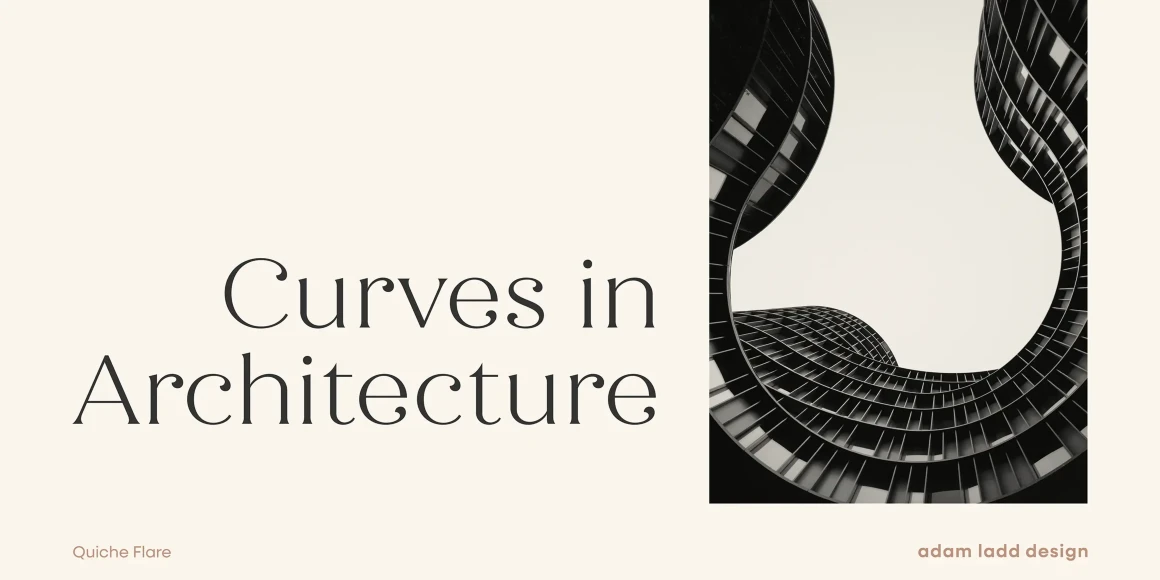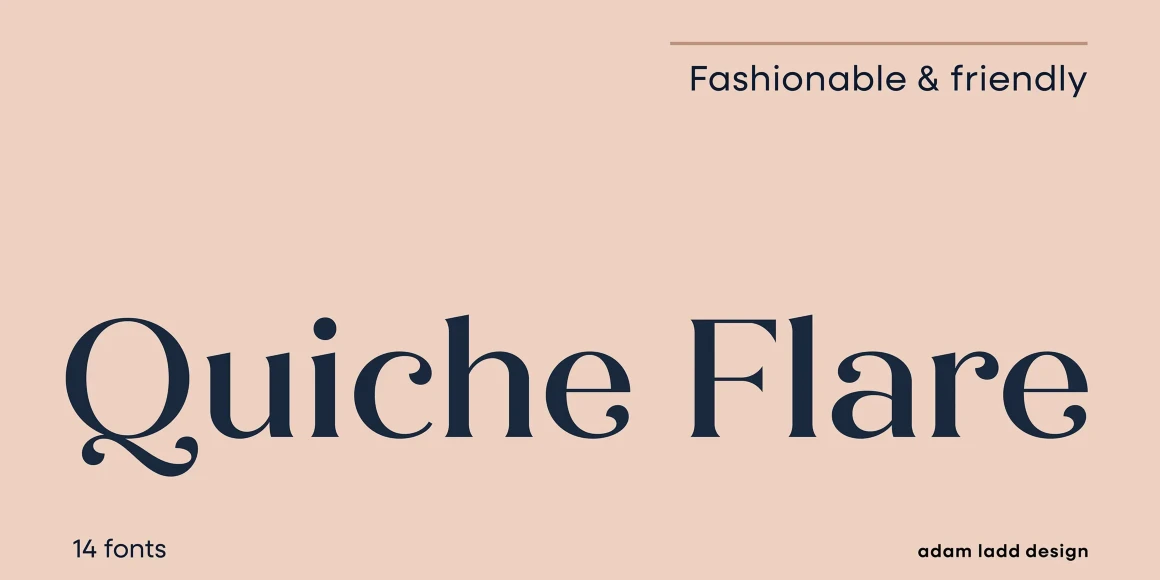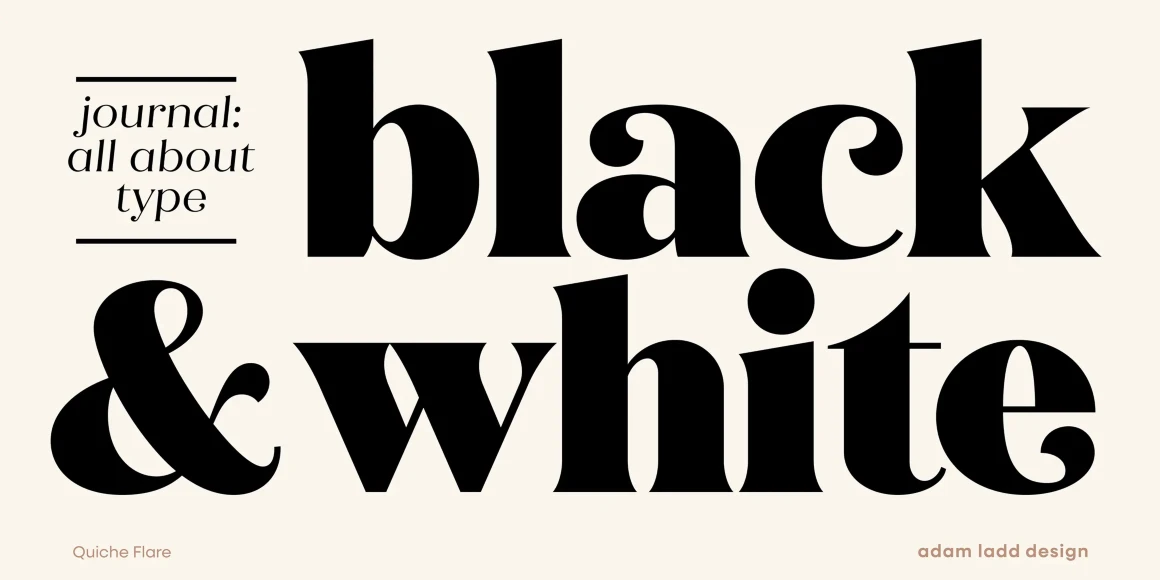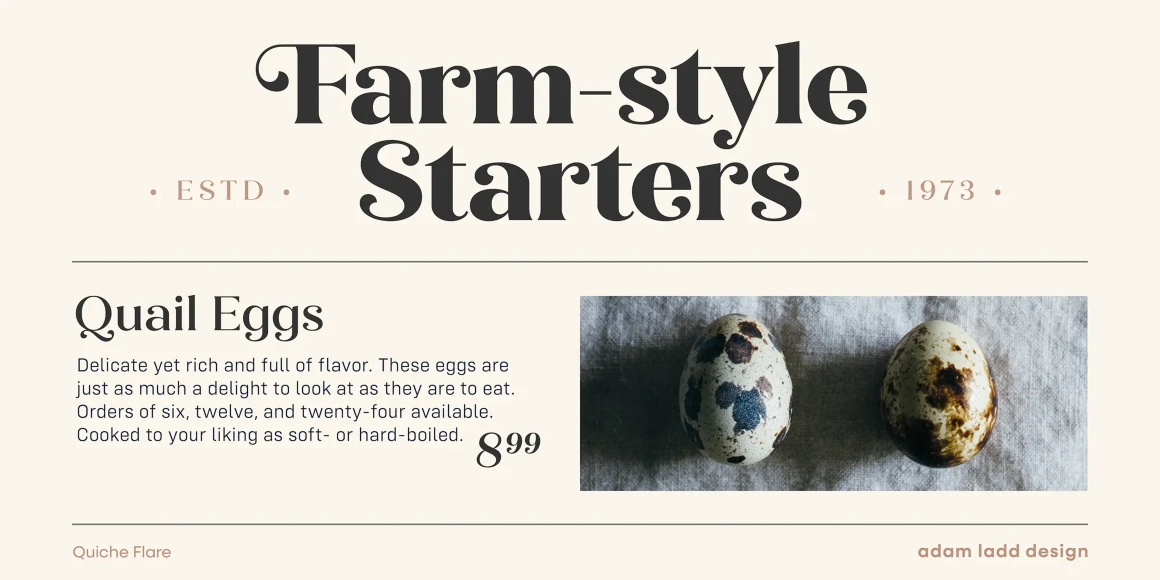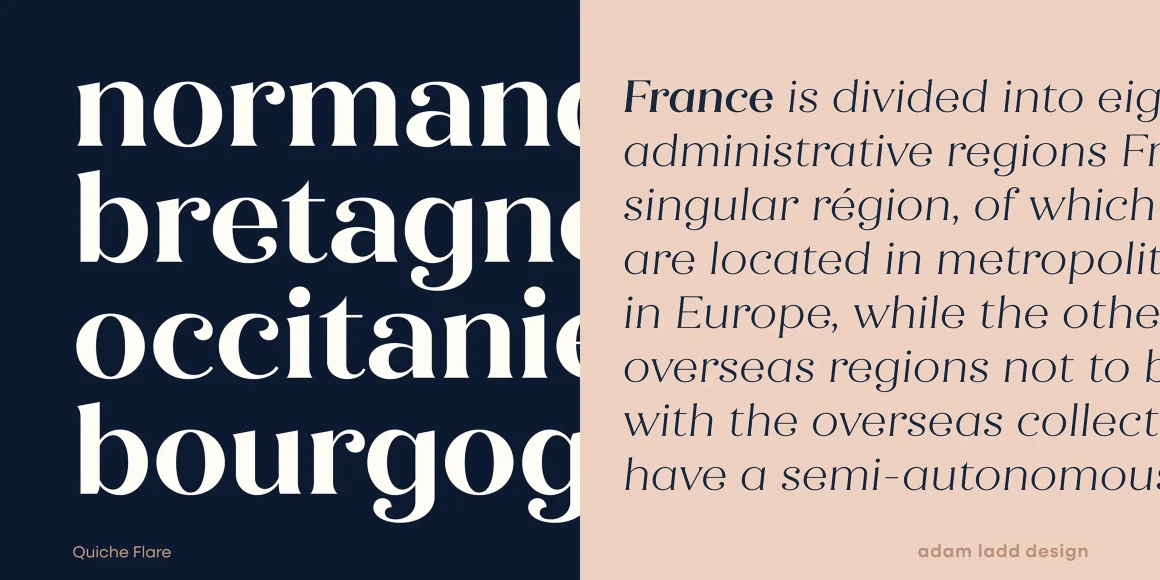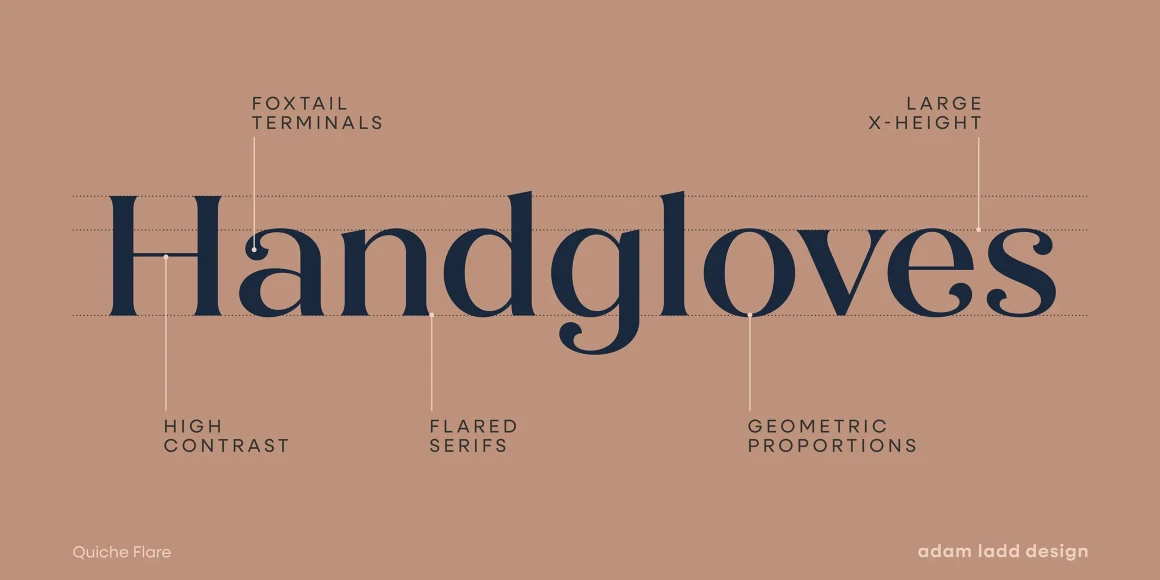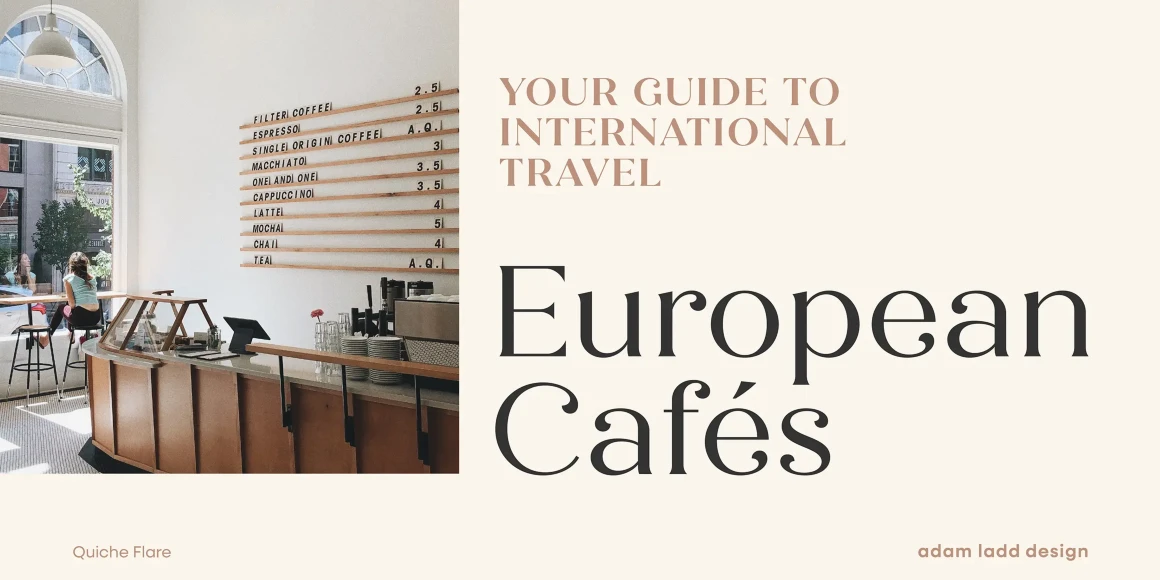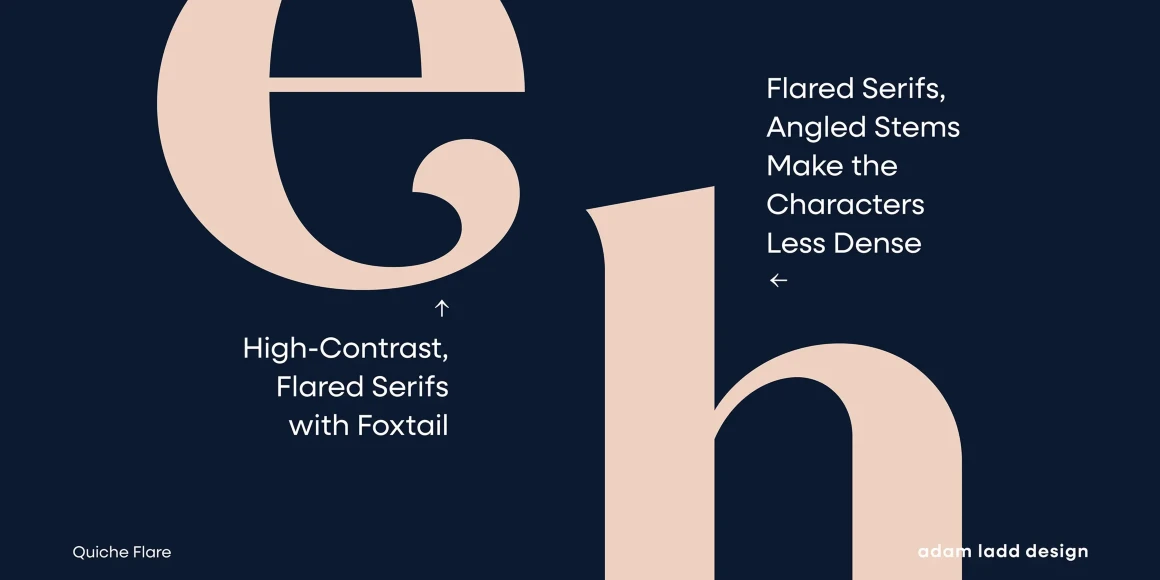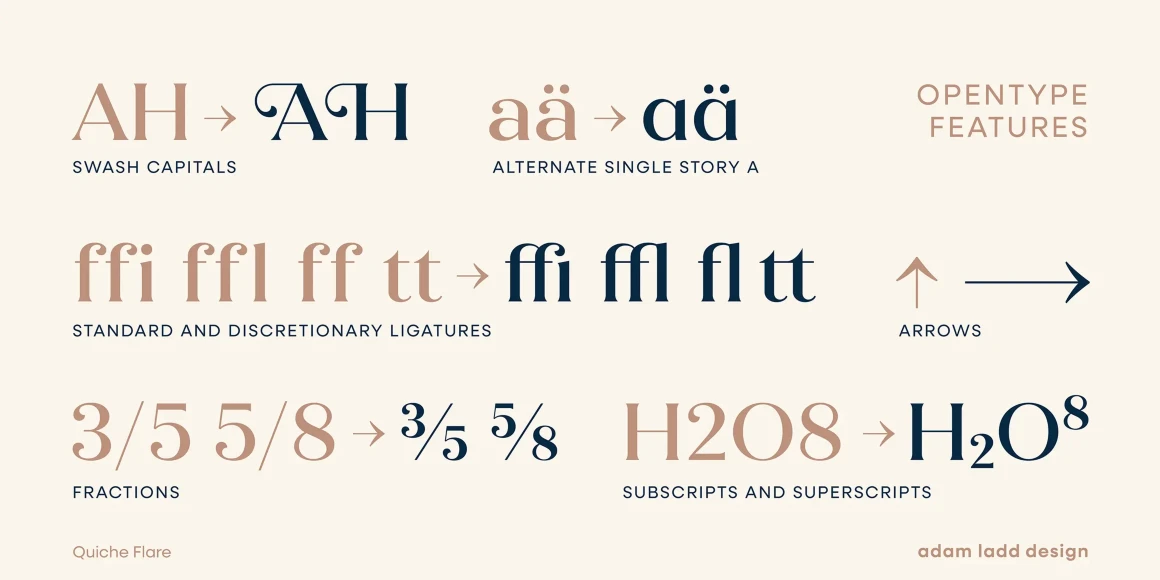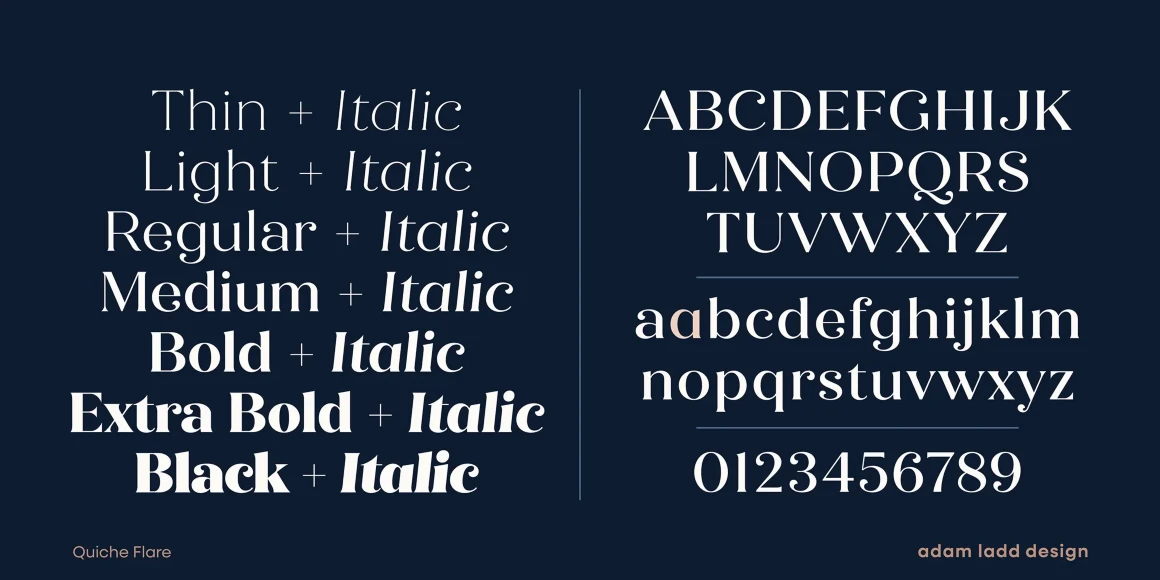
Quiche Flare
By Adam Ladd
Quiche Flare is a high-contrast, flared serif typeface featuring foxtail ball terminals, swash capitals, and geometric proportions. The design exhibits elegance and a touch of whimsy with the foxtail terminals. The flared serifs add more interest, beauty, and movement, while the large x-height makes it stylish and warm. The range of weights in this 14-font family means it’s ready for branding, advertising, magazines, products, packaging, labels, invitations, stationery, fashion, and more.